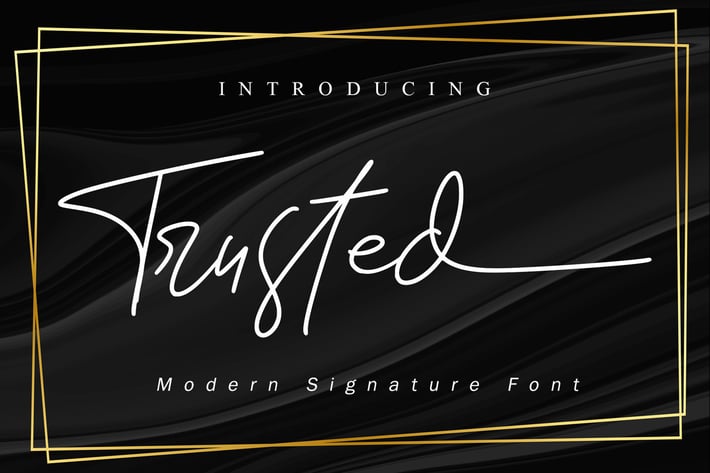
Trusted // Business Signature Font
Trusted // Business Signature Font is a beautiful light handwritten font with a unique feel and a stunning impact. It will add a luxury spark to any design project that you wish to create! This font is PUA encoded which means you can access all of the glyphs and swashes with ease!
Trusted // Business Signature Font is the great choice for a watermark on branding, design, wedding, photography, signature, logo design, album cover, business card, quotes, and many other design projects.
Each font has:
Stylish handwritten style
Ligatures, Alternates, Swash (ending tail), and titling (beginning tail)